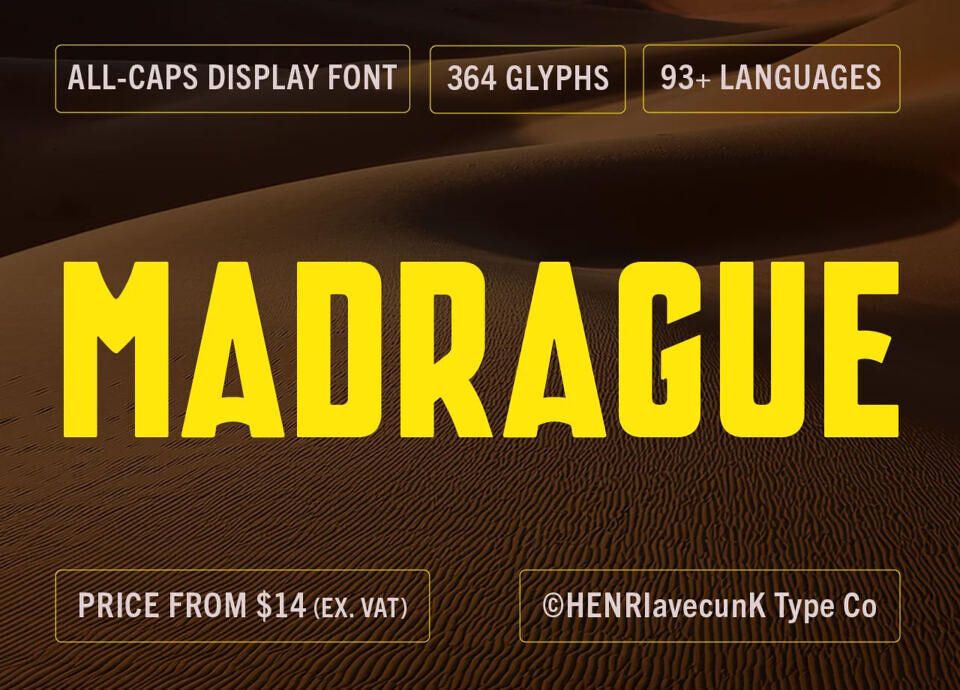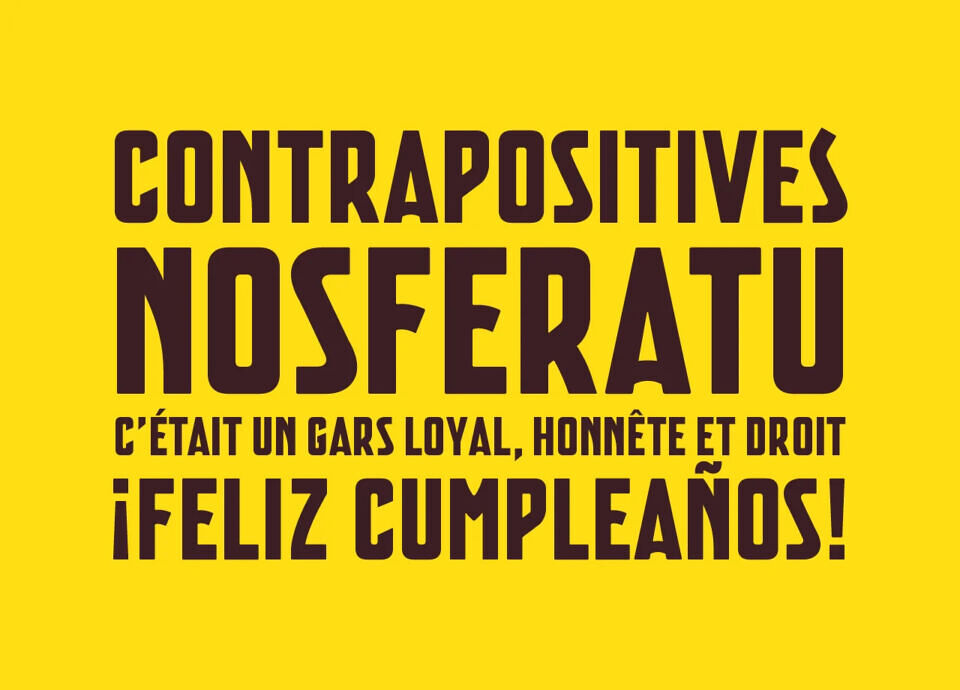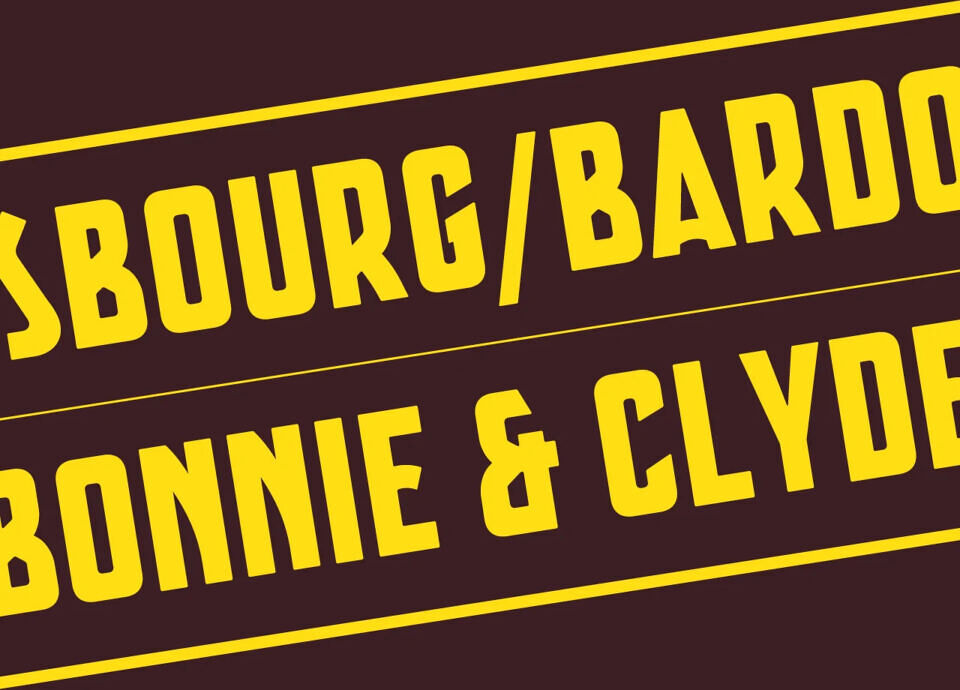
Madrague is built to make a strong impact. Bold, powerful, and crafted exclusively in uppercase, it commands attention at first glance. Its character balances the raw charm of the past with a clean, modern twist—exactly where rustic charm meets contemporary design. The result is unmistakably unique.
Designed to stand strong, it’s perfect for posters, signage, and logos where visibility and personality matter. Whether you want to evoke heritage, confidence, or authority, this font delivers a striking presence that won’t be ignored.